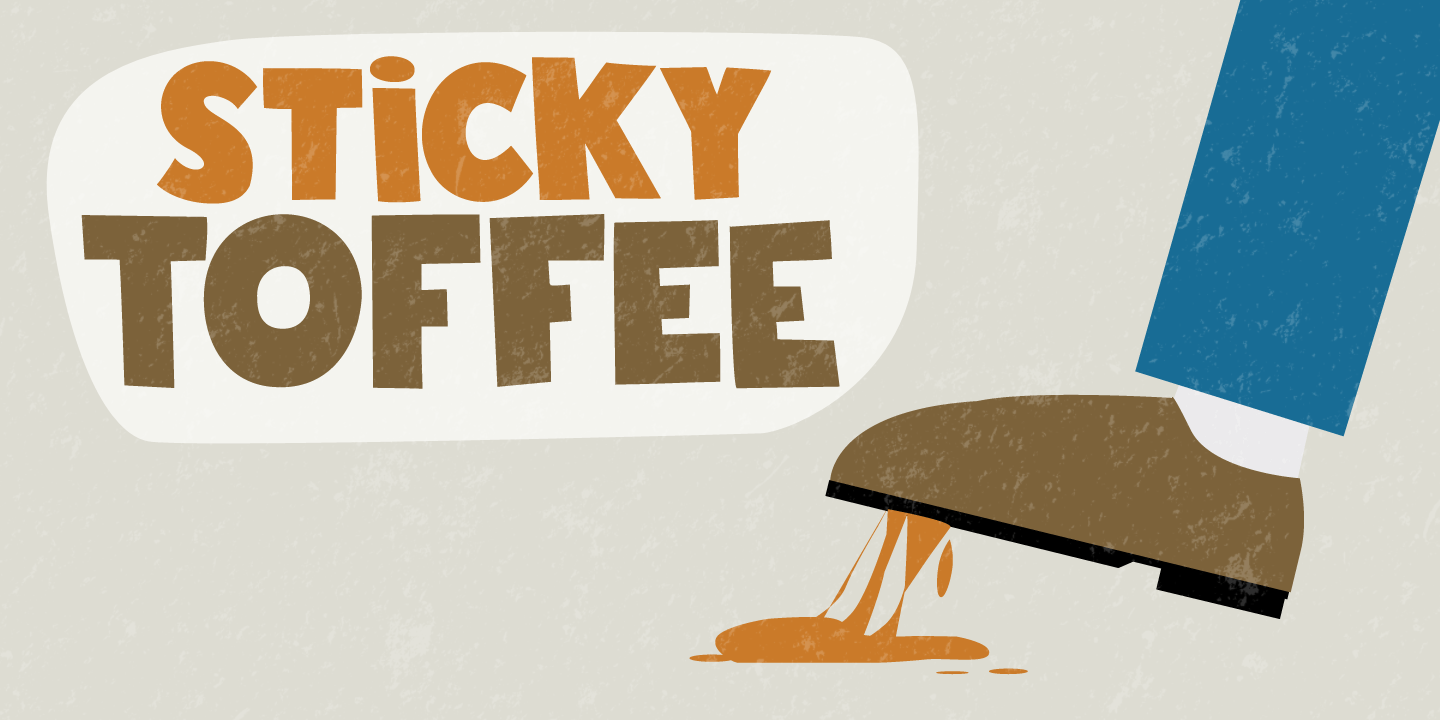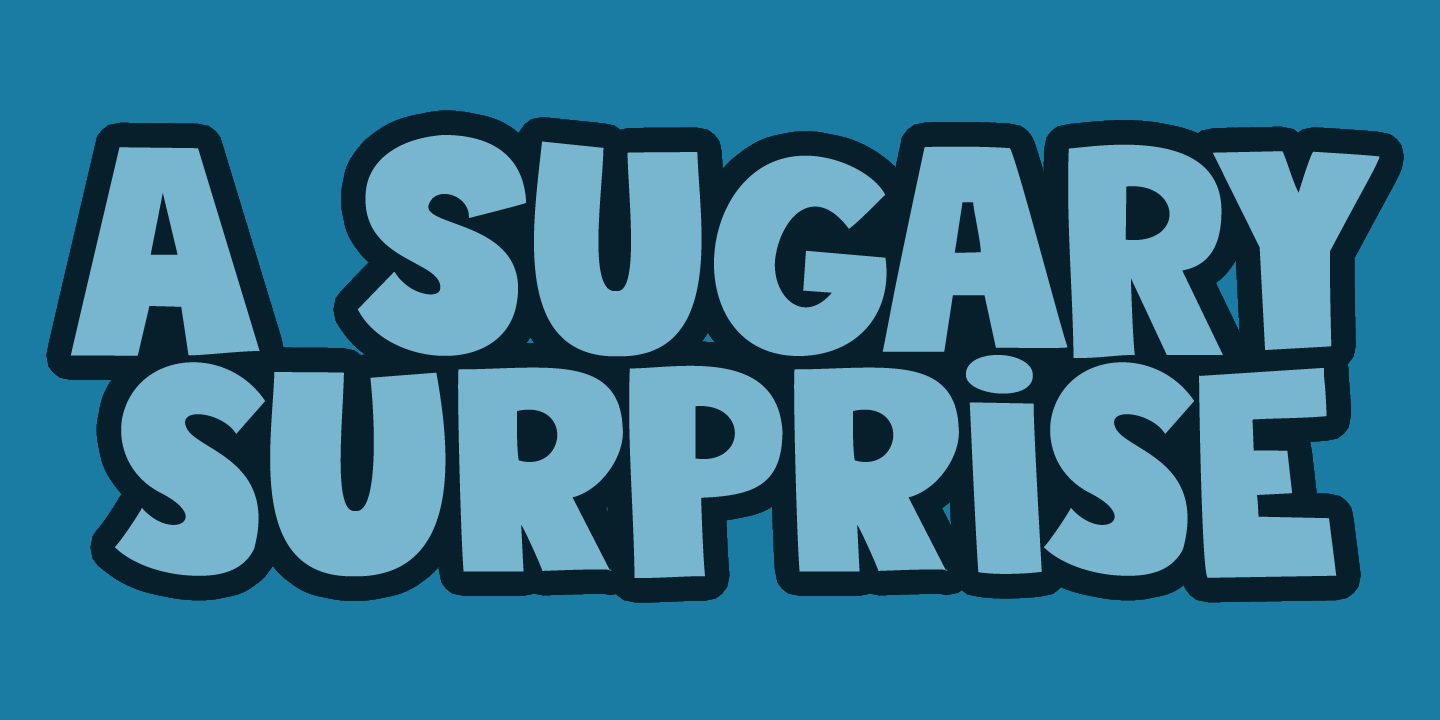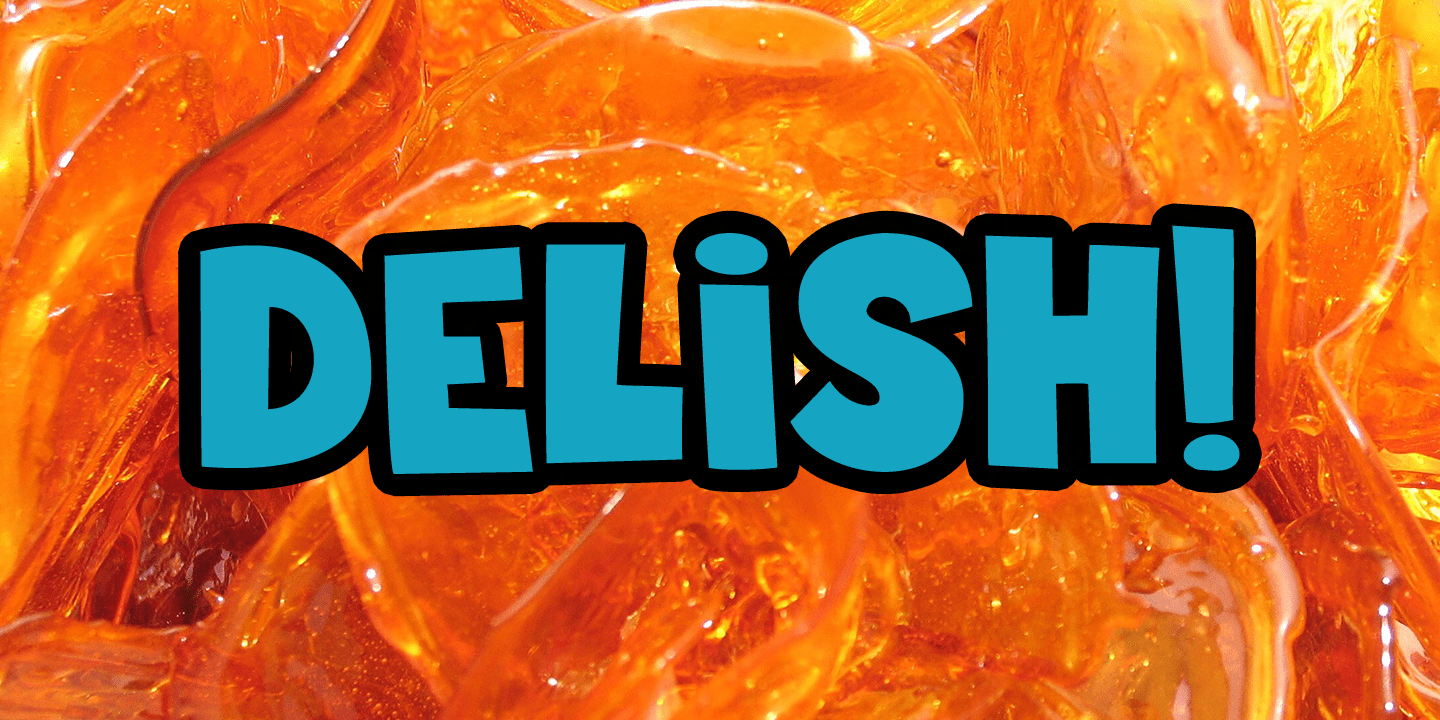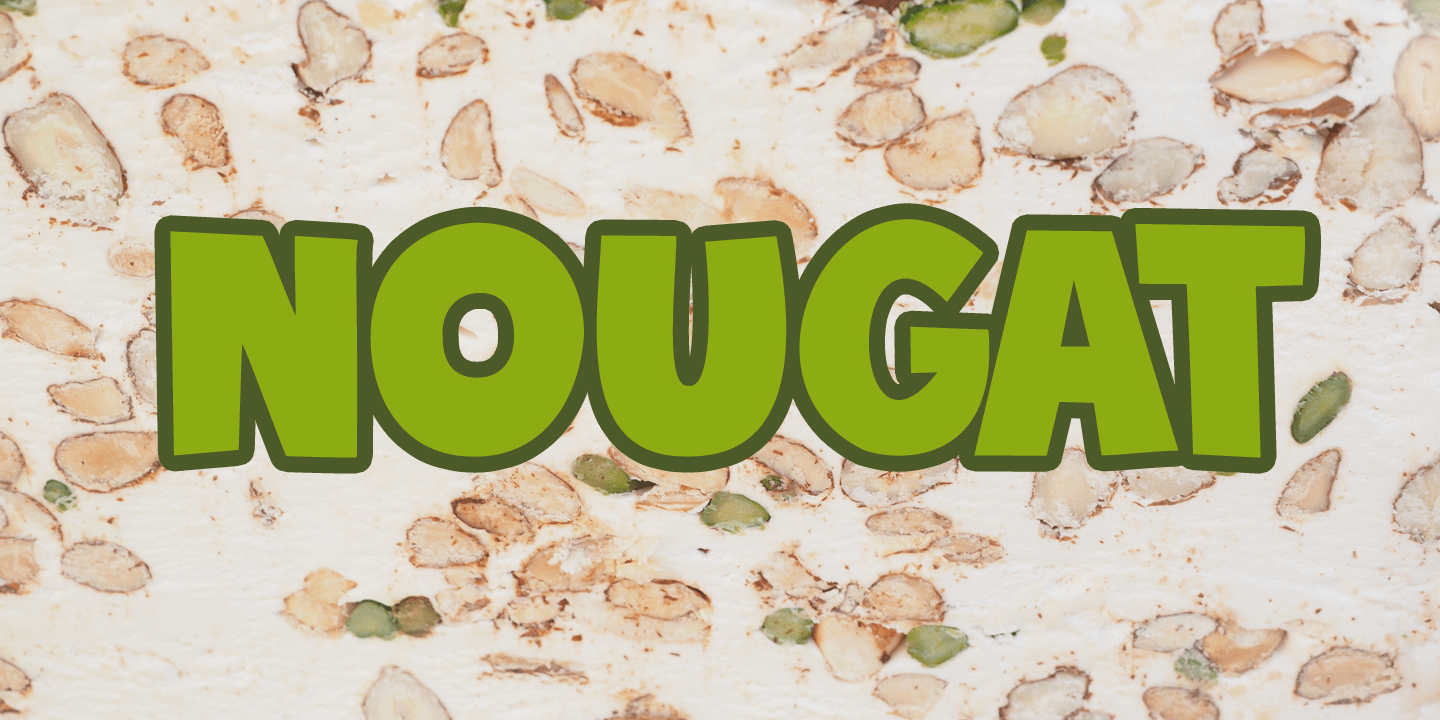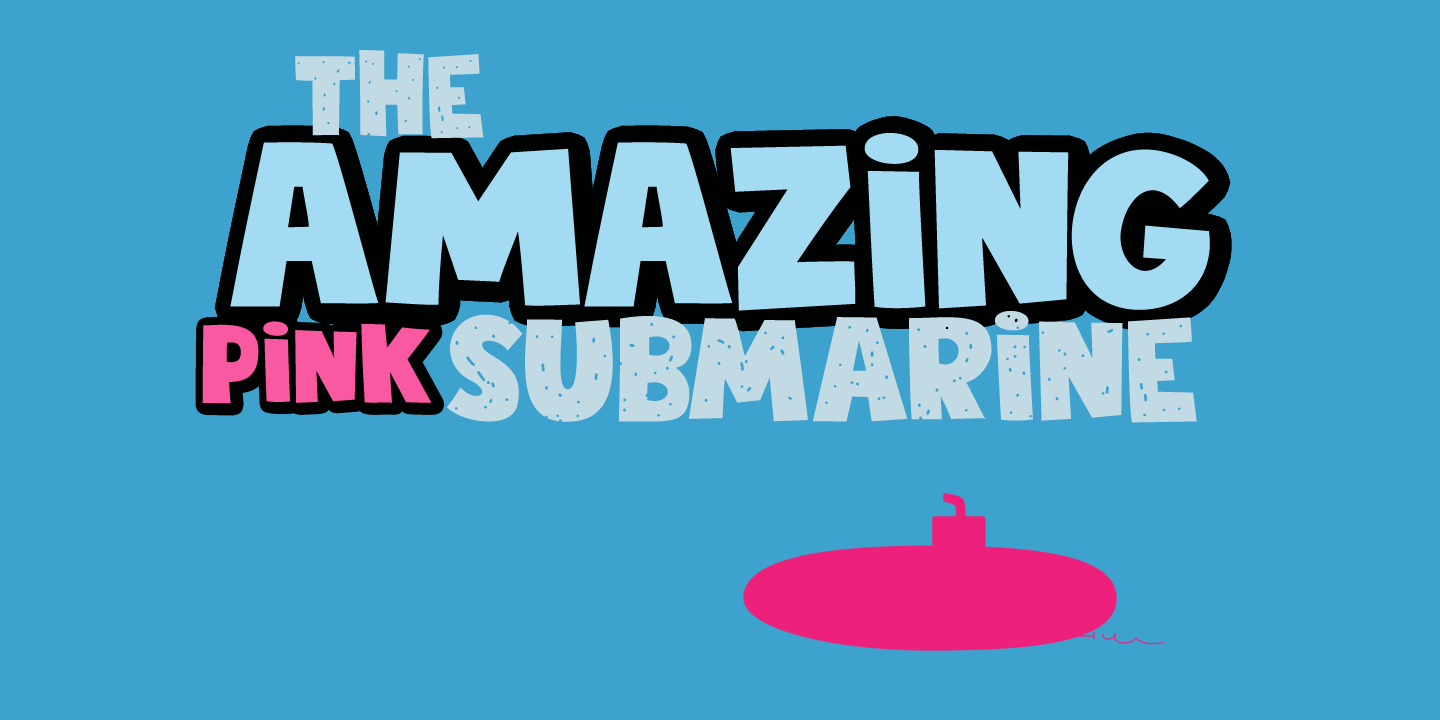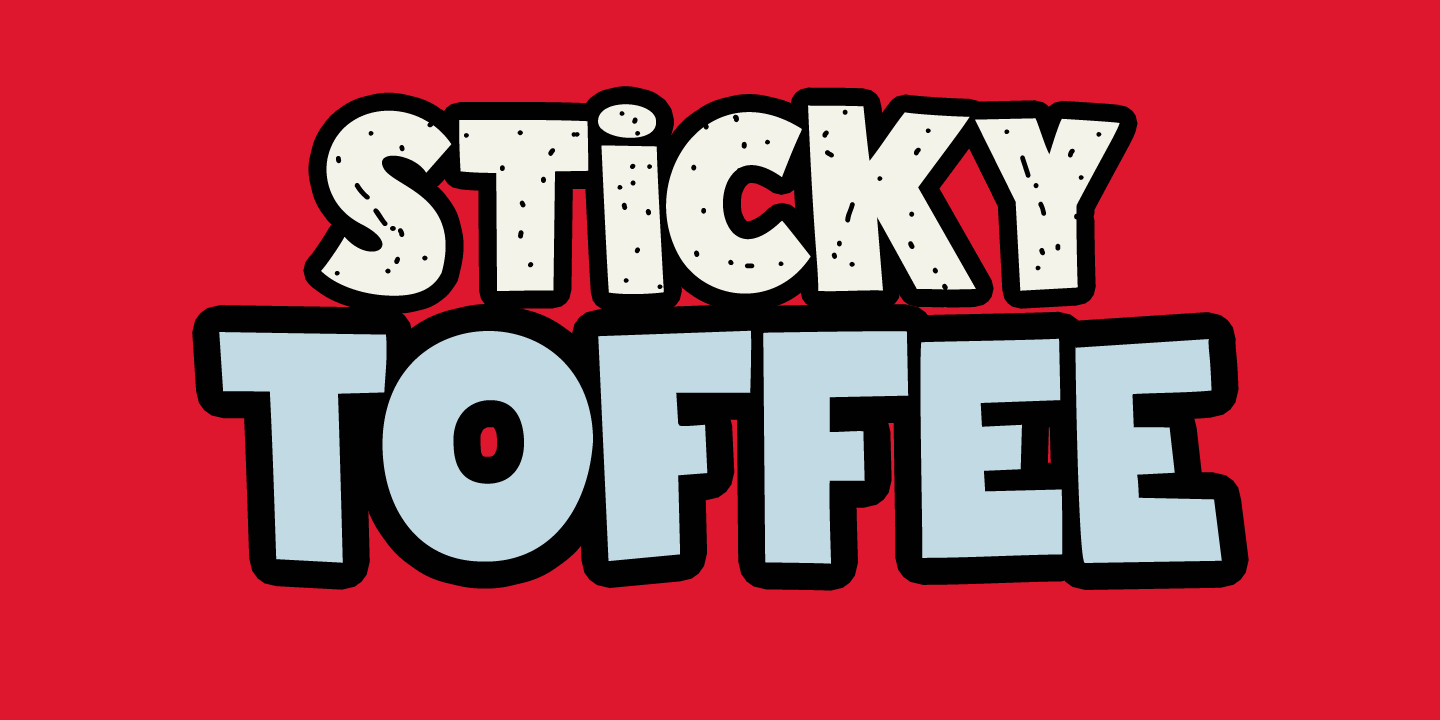
Sticky Toffee
About Sticky Toffee
I don\’t have a sweet tooth myself, but I do like toffee! One of my favourite desserts is English Sticky Toffee Pudding, so I really had to name a font after this delicacy. Sticky Toffee is a bold display font. It\’s all caps (in case you might have missed…